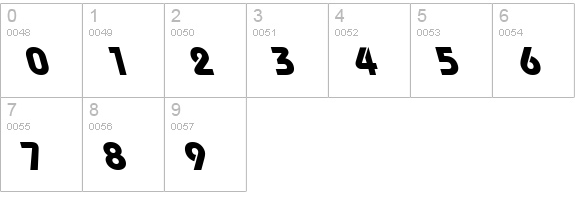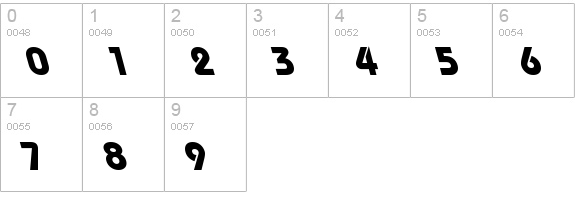
BordeauxBackslant Bold is a strong, high-contrast variant in the BordeauxBackslant typeface family \xE2\x80\x94 well suited to headlines, attention-grabbing titles, and strong calls-to-action.
BordeauxBackslant Bold font is a stunning display typeface that exudes elegance and sophistication. With its unique backslant design and bold strokes, this font is perfect for making a statement in your designs. Whether you're creating a logo, poster, or branding materials, BordeauxBackslant Bold will surely captivate your audience. What's even better is that BordeauxBackslant Bold font is available for free download at FontsMarket.com. Yes, you read that right - this premium font can be yours at no cost! Don't miss out on the opportunity to elevate your projects with the striking beauty of BordeauxBackslant Bold font today. Download it now and let your creativity shine!